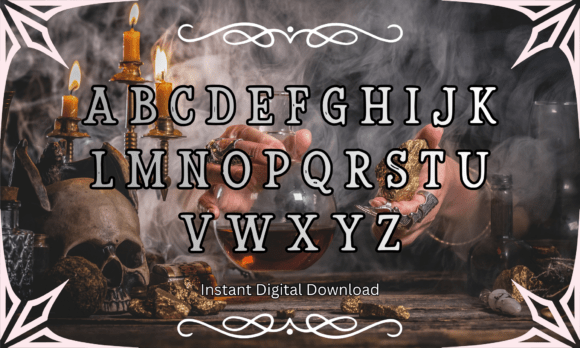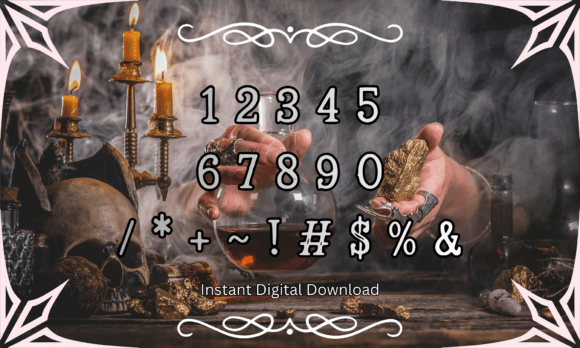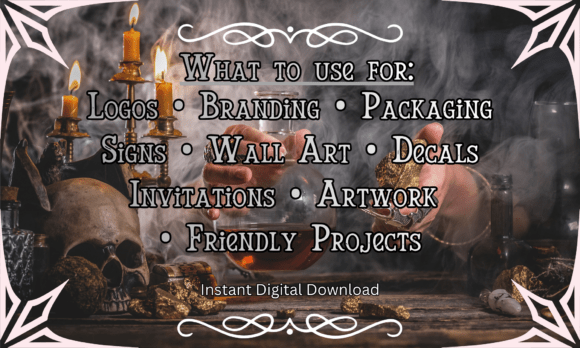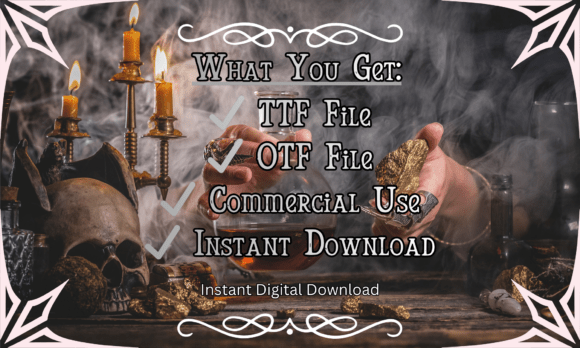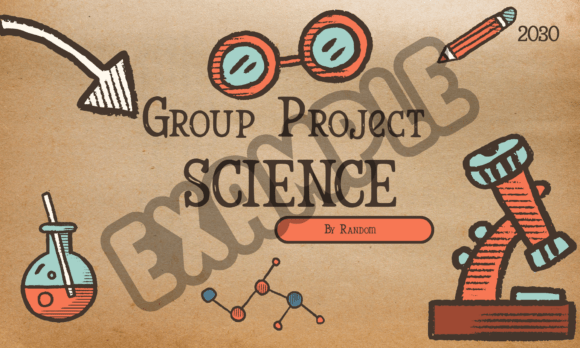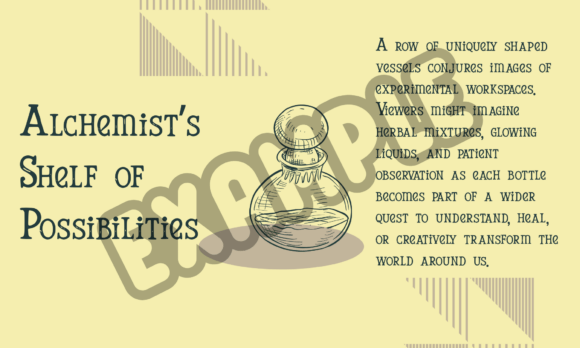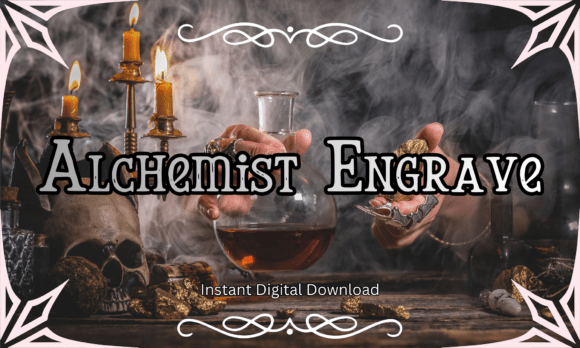
Unlock the Secrets of Alchemist Engrave Font: A Vintage-Inspired Display Font
Are you looking to add a touch of mystique and sophistication to your designs? Look no further than Alchemist Engrave Font, a bold and captivating display font that combines the essence of dark academia, gothic, and alchemy aesthetics. This engraved-style font is perfect for designers and crafters seeking to create moody, magical, and high-end creative projects that exude an air of mystery and luxury.
The Inspiration Behind Alchemist Engrave Font
Alchemist Engrave Font is designed to evoke the feeling of an ancient grimoire or alchemist’s journal, transporting your designs to a world of mysticism and wonder. The font’s vintage-inspired lettering is reminiscent of engraved stone or metal, adding a sense of depth and character to any design. Whether you’re working on a book cover, branding project, or marketing materials, Alchemist Engrave Font is sure to make a lasting impression.
Key Features of Alchemist Engrave Font
- Vintage-inspired design: Alchemist Engrave Font boasts a unique blend of dark academia, gothic, and alchemy aesthetics, making it perfect for creating mysterious and captivating designs.
- Engraved-style lettering: The font’s engraved-style lettering adds a sense of depth and character to any design, giving it a luxurious and high-end feel.
- Bold and mystical presence: Alchemist Engrave Font is designed to make a statement, bringing a bold and mystical presence to your designs that is sure to captivate your audience.
- Perfect for moody and magical projects: Whether you’re working on a horror-themed project or a fantasy-inspired design, Alchemist Engrave Font is the perfect choice for creating moody and magical designs.
Uses for Alchemist Engrave Font
Alchemist Engrave Font is a versatile font that can be used in a variety of creative projects, including:
- Book covers: Add a touch of mystery and sophistication to your book covers with Alchemist Engrave Font, perfect for horror, fantasy, and mystery novels.
- Branding and logos: Create a lasting impression with Alchemist Engrave Font, ideal for luxury brands, occult-inspired businesses, and mystical services.
- Marketing materials: Elevate your marketing materials with Alchemist Engrave Font, perfect for creating eye-catching posters, flyers, and brochures.
- Stationery and packaging: Add a touch of luxury and sophistication to your stationery and packaging with Alchemist Engrave Font, ideal for high-end brands and businesses.
Tips for Using Alchemist Engrave Font
To get the most out of Alchemist Engrave Font, here are a few tips to keep in mind:
- Use it sparingly: Alchemist Engrave Font is a bold and attention-grabbing font, so use it sparingly to avoid overwhelming your design.
- Pair it with contrasting fonts: Pair Alchemist Engrave Font with contrasting fonts to create visual interest and add depth to your design.
- Experiment with colors: Alchemist Engrave Font looks stunning in metallic colors, so experiment with gold, silver, and copper to add a touch of luxury to your design.
Alchemist Engrave Font is a unique and captivating display font that is sure to bring a bold and mystical presence to your designs. With its vintage-inspired design, engraved-style lettering, and bold and mystical presence, this font is perfect for designers and crafters seeking to create moody, magical, and high-end creative projects. Whether you’re working on a book cover, branding project, or marketing materials, Alchemist Engrave Font is the perfect choice for adding a touch of sophistication and luxury to your designs.